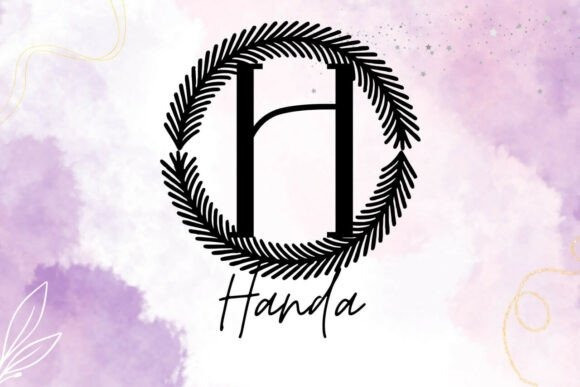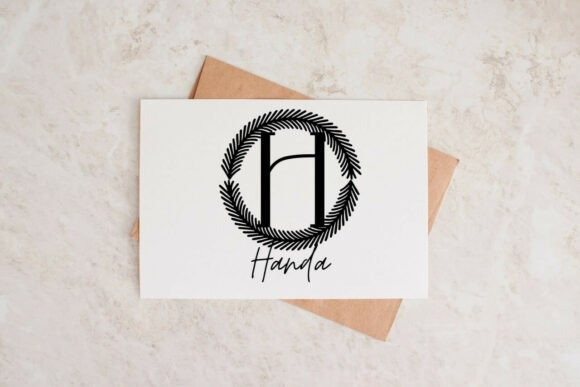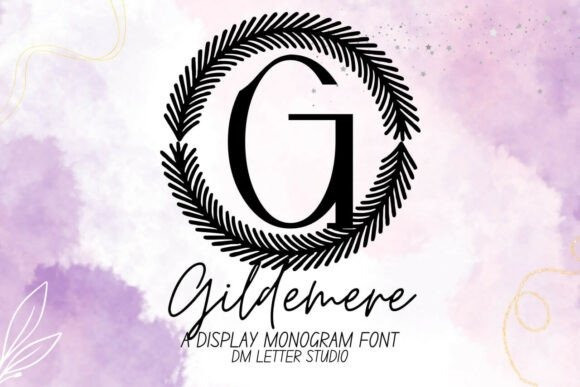
Gildemere Monogram Font
Gildemere Monogram Font turns simple initials into polished, boutique-ready emblems with a hint of classic luxury. Strokes feel smooth and confident, while generous counters keep tiny tags readable. Use it for wedding suites, boutique logos, keepsake gifts, foil seals, and premium packaging. In addition, Gildemere pairs beautifully with refined serifs and quiet humanist sans fonts, so your layouts stay elegant without extra work.
Where this monogram font shines
Set single, double, or triple initials for logos, seals, menus, and place cards. Then frame them with laurel rings, oval borders, or fine rules to echo the poised geometry. Since the proportions favor symmetry and clarity, centered compositions come together in minutes. As a result, your thumbnails pop on marketplaces and your listings feel consistent from invitations to signage. Gildemere also scales smoothly from jewelry cards to entry displays, which makes it ideal for event décor and retail packaging.
Fast setup, premium results
Design tips for Gildemere Monogram
Keep initials large and let white space breathe. Pair the headline monogram with a soft serif for body text or a clean sans for labels and dates. Add micro shadows, a fine inner stroke, or a delicate frame for depth. Because the forms are airy and balanced, textured papers and metallic accents raise perceived value. However, keep copy short so the monogram remains the hero—especially on favors, tags, and wax seals.